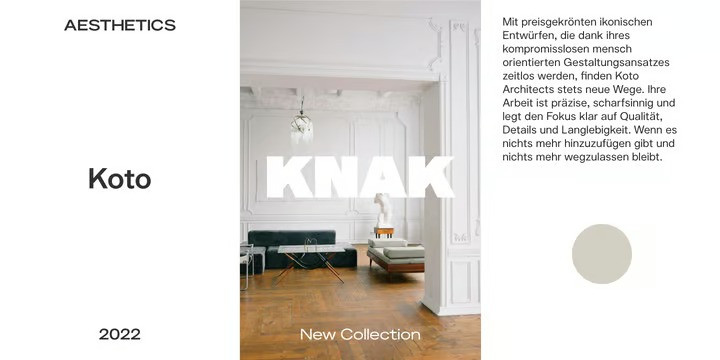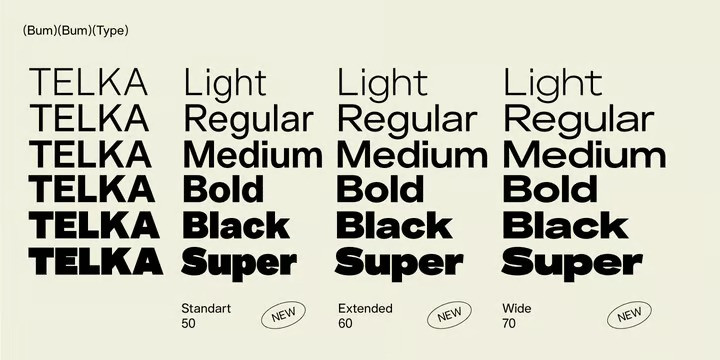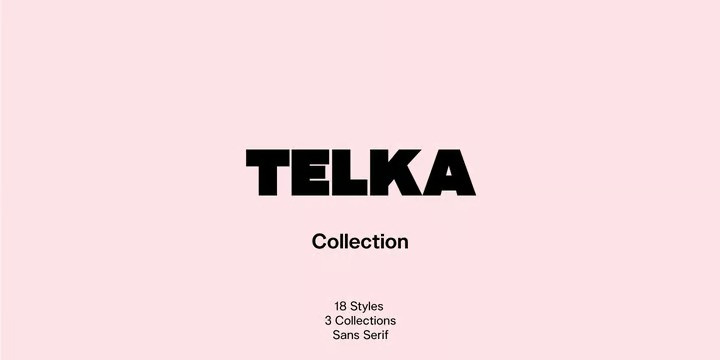
Telka Font
Telka Sans Serif Font Family, a beautiful Sans Serif font with ideas are varied and modern applications are complex. Telka is the typeface that meets this contemporary need, following our studio approach to creating multidimensional instruments. Characteristic for this typeface is the variation in the width of the characters. From the standard, neutral wide form collection to the wide form collection with fancy details and strong personality.